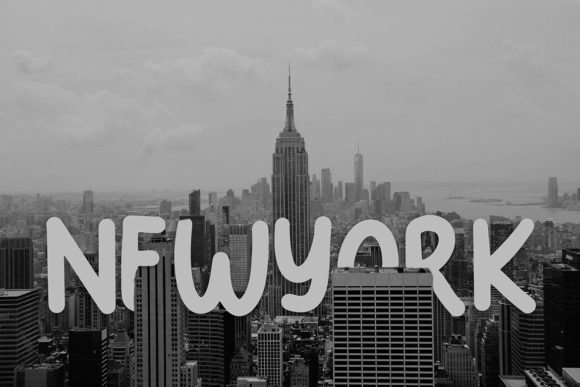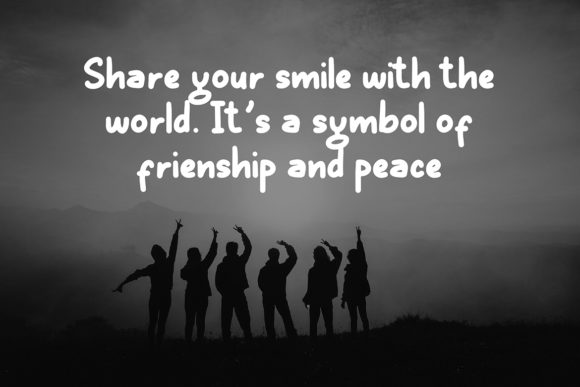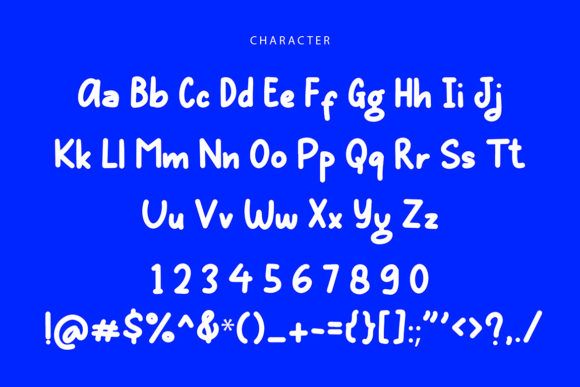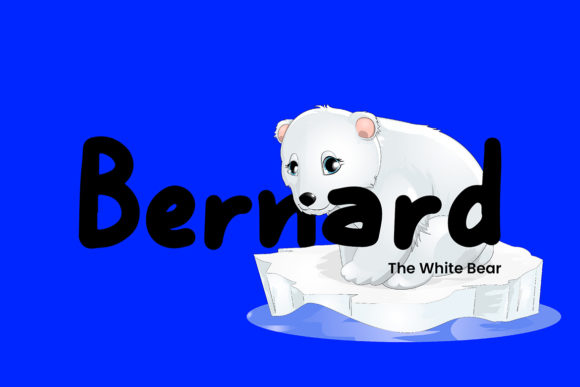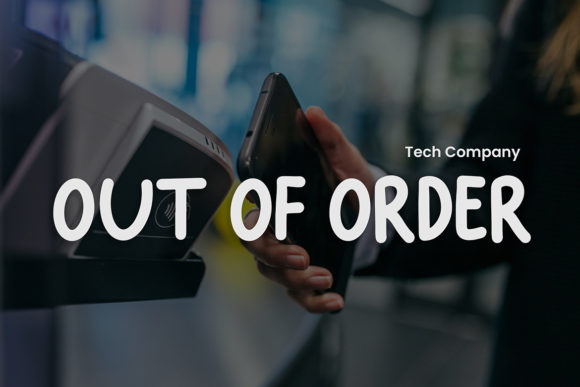
Introduction to Kelingan Font
As you sit at your desk, surrounded by scattered papers, empty coffee cups, and the faint glow of your computer screen, you know that moment of creative clarity is just around the corner. It’s the moment when a design concept clicks, and you know exactly which font will bring your vision to life. For many designers, that moment is made possible by the Kelingan Font.
This charming handwritten font has captured the hearts of designers worldwide with its clean, quirky charm. Whether you’re working on a logo, branding, social media graphics, or a crafty DIY project, Kelingan Font is the perfect design resource to elevate your creative project to the next level.
Key Features of Kelingan Font
- Unique, custom-designed font with a transparent background, offering flexibility in design.
- Font size: scalable, allowing for easy resizing without compromising image quality.
- High-resolution design, suitable for use in both print and digital media.
- Perfect for designers seeking a distinctive, creative touch for their projects.
Honest Review: Kelingan Font
I recently had the chance to use the Kelingan Font in a creative project and I must say, it’s been a game-changer. This font is a high-quality design resource that’s perfect for any design project that requires a unique and elegant touch.
Here are some of the things that work well with the Kelingan Font: ✨
- High-quality design that’s perfect for logos, headings, and titles
- Transparent background makes it easy to use on any background
- The font may not be suitable for large blocks of text, as it can be a bit difficult to read
Overall, I’m really impressed with the Kelingan Font. It’s a great addition to any designer’s toolkit and I would highly recommend it for any creative project that requires a high-quality font. Just be sure to check the limitations and consider purchasing the full version if you need more glyphs and characters.
Kelingan Font is a versatile font that can be used for a variety of creative projects, including logos, business cards, and marketing materials. Its transparent background makes it easy to use on a variety of backgrounds, and its high-quality design makes it a great choice for any design project.
Compared to Kelingan Font, Pacifico Font has a more refined and polished look, making it suitable for formal and professional designs. While Kelingan Font has a more playful and whimsical feel, Pacifico Font is better suited for projects that require a level of sophistication.